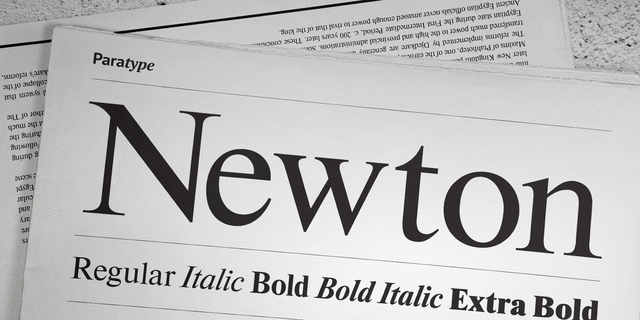
About NewtonNewton was developed at ParaType (ParaGraph) in 1990 by Vladimir Yefimov and Alexander Tarbeev under the name TimesET. It’s based on Times New Roman of Monotype, 1932, by Stanley Morison and Victor Lardent, and other versions of Times. The font has many characteristics of Old Style serif faces; it was designed for better legibility in combination with good economy. It’s widely used in books and magazines, reports and office documents, as well as for display and advertising.
noble, conservative, traditional, classic, narrative, artistic, silver, educated, sharp, masterful, accurate, aristocratic, elite, correct, static, comme il faut, standard, humanitarian, gentlemanly, polite, orderly, regardful, diligent, tactful, lyrical, dynamic, convincing, authoritative